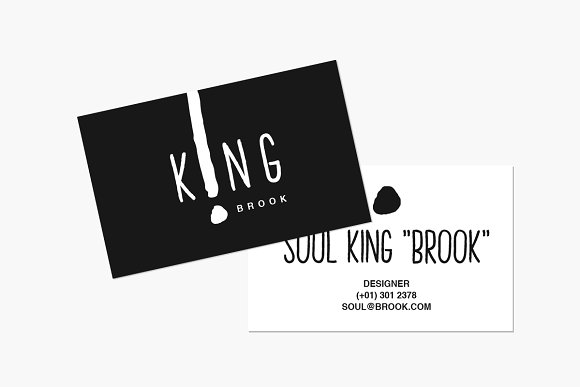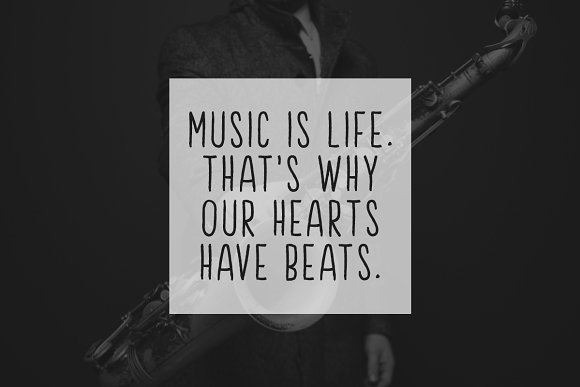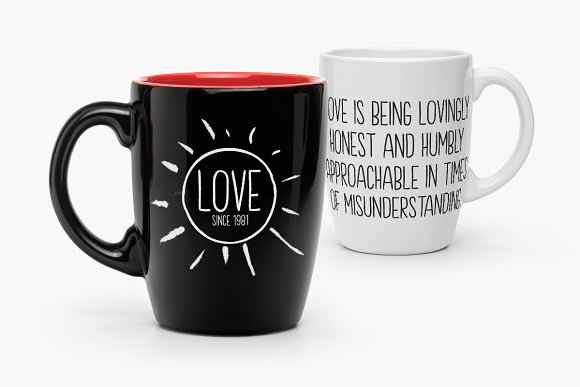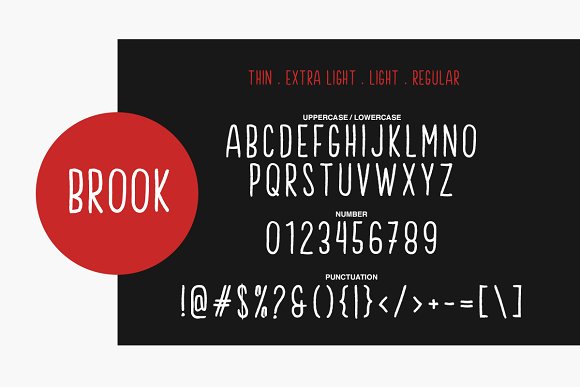
Brook Font
About Brook Font
The Brook font family is a beautiful family with 4 weights.
This handcrafted font comes with uppercase characters. You will get:
Brook Regular
Brook Light
Brooke Extra Light
Brook Thin